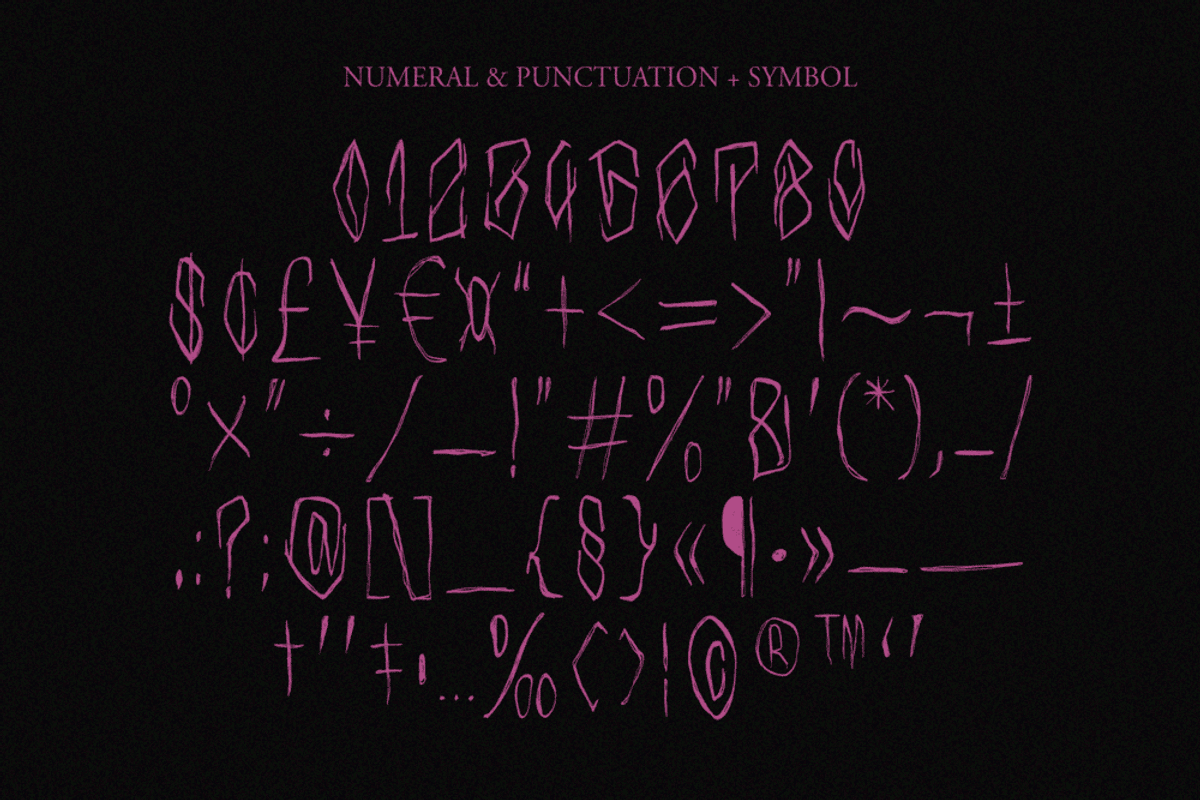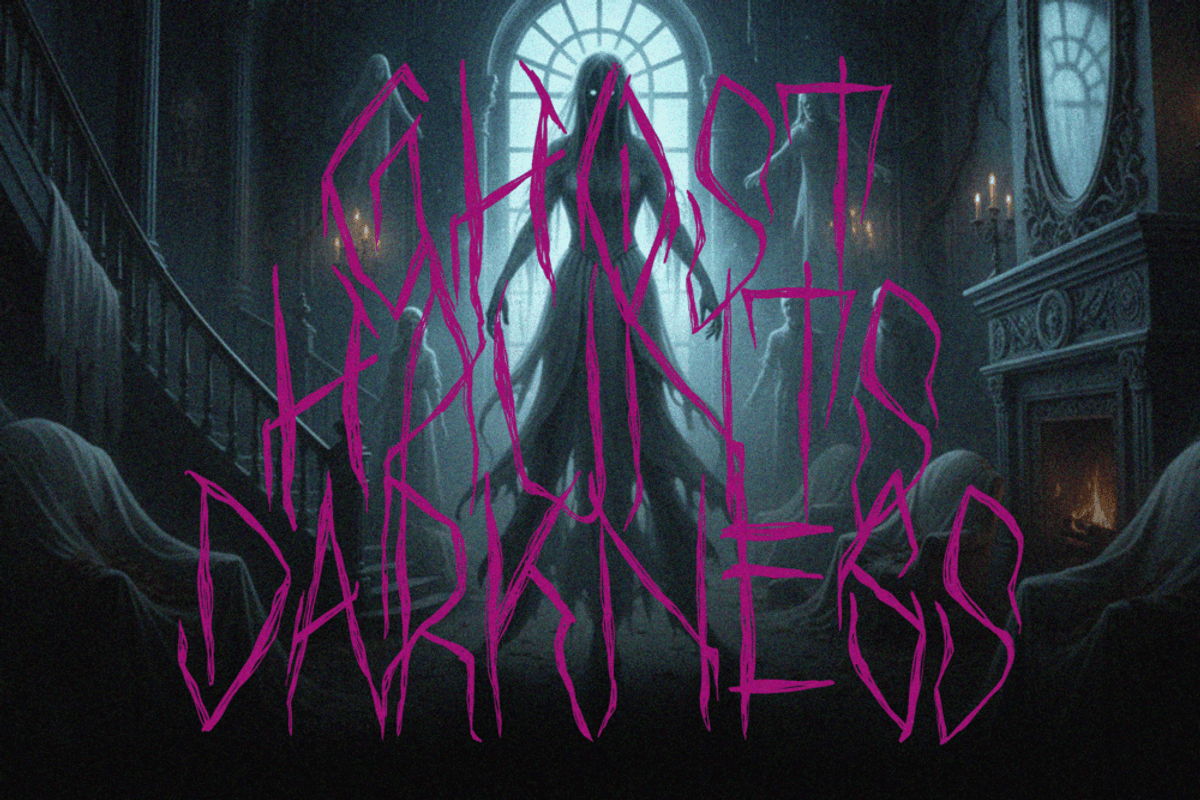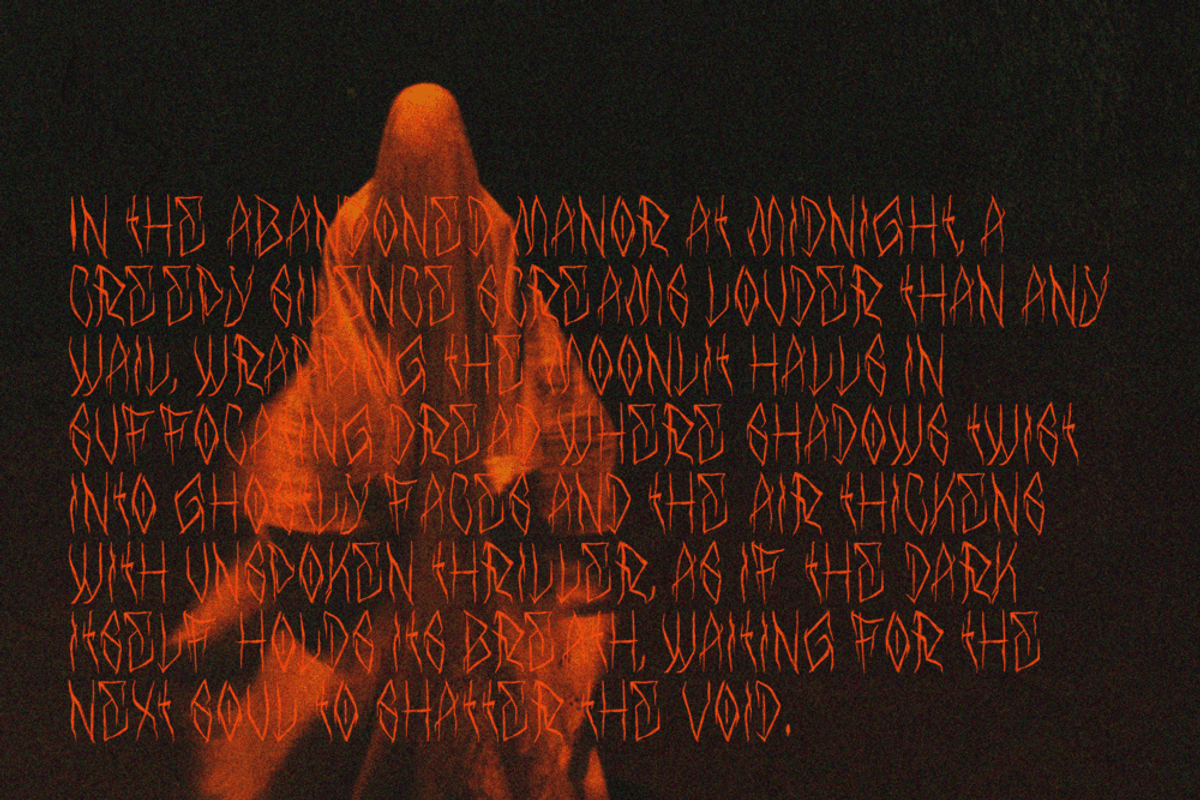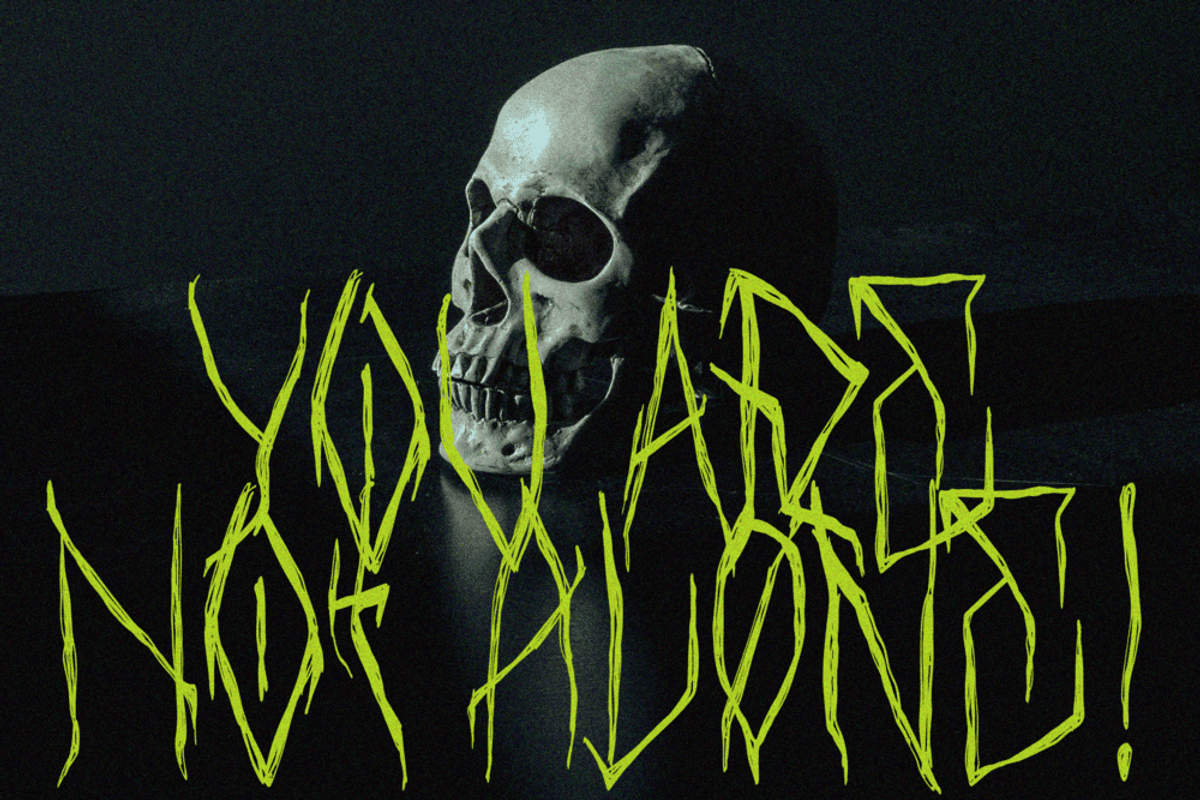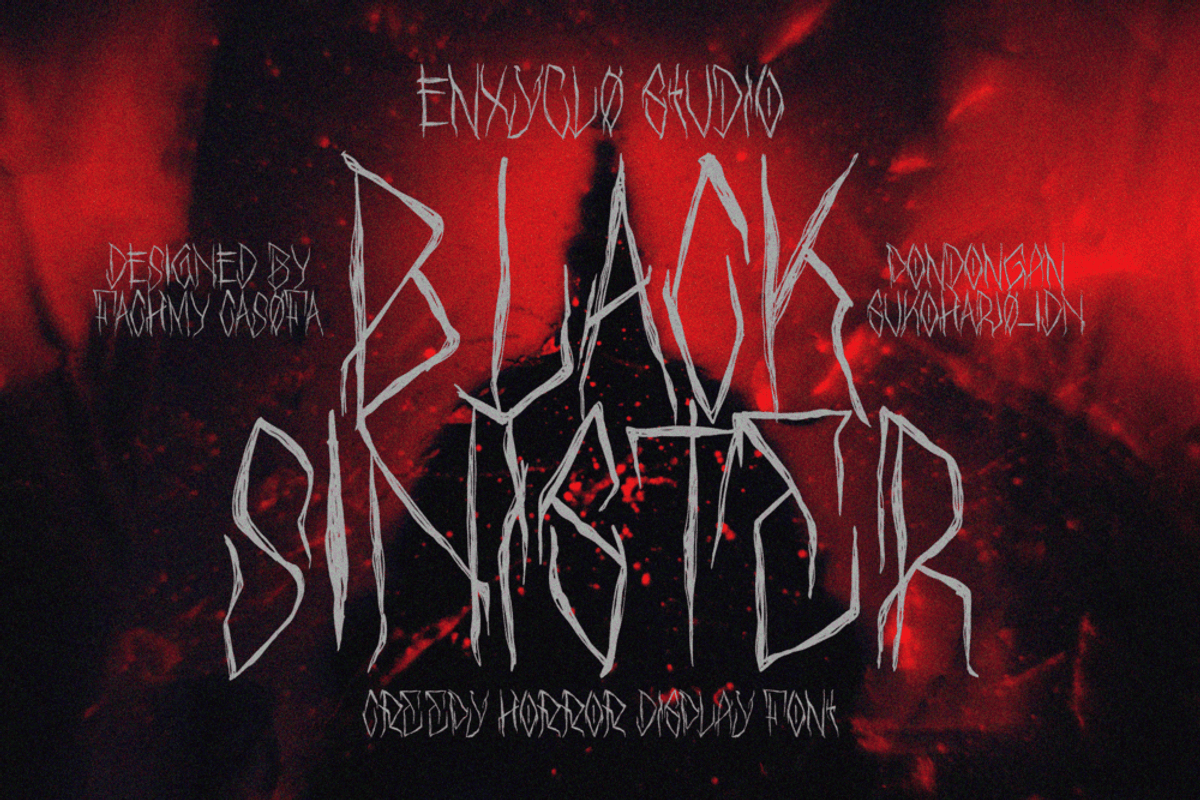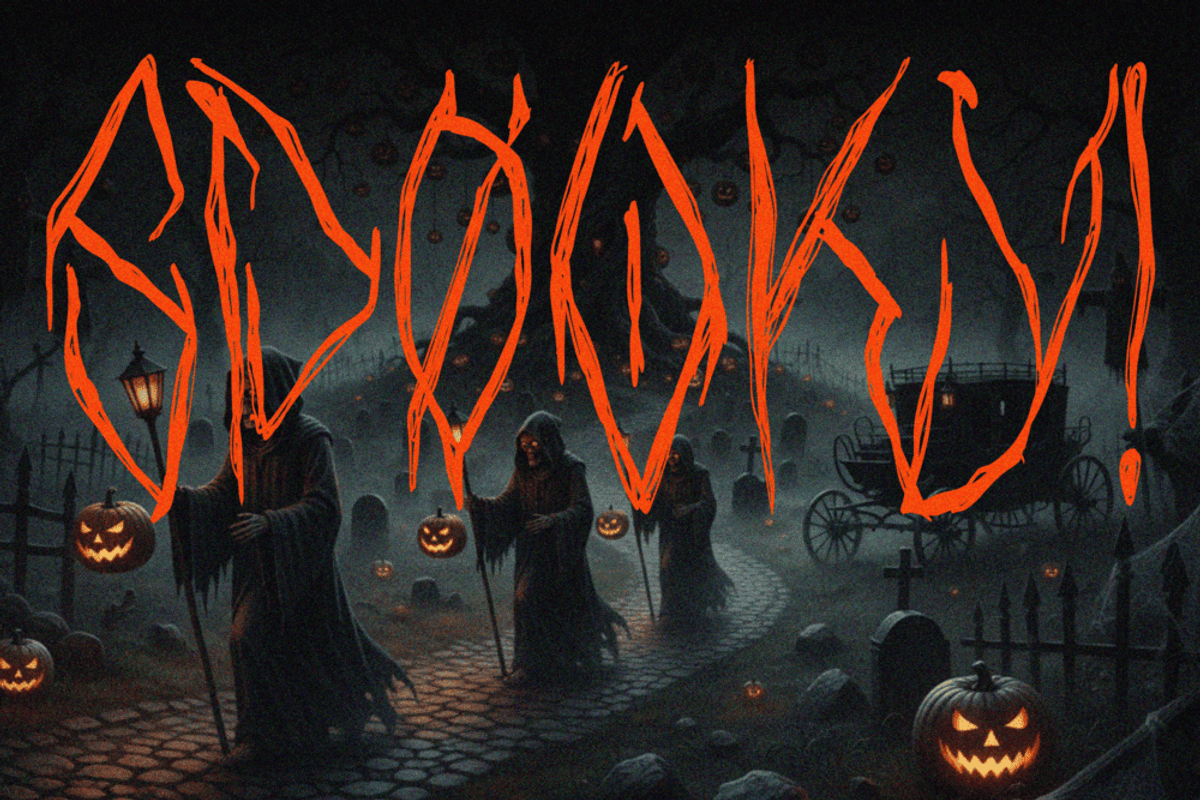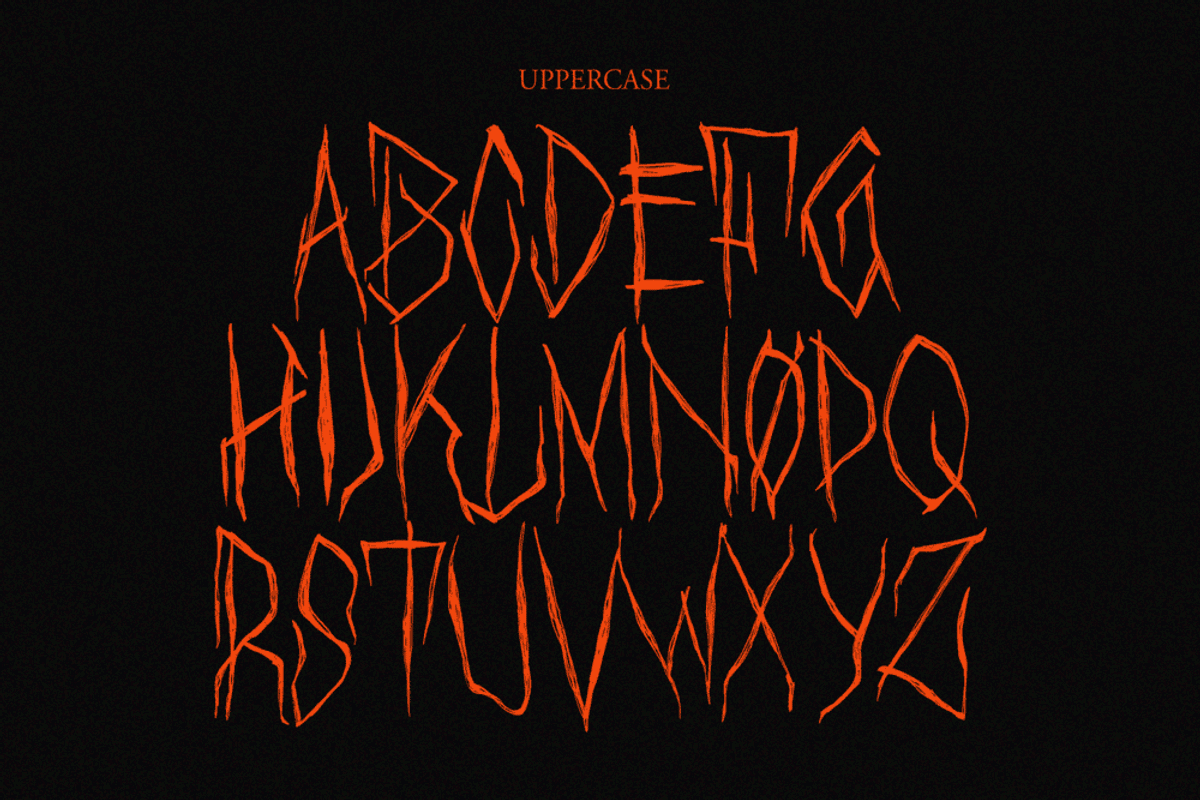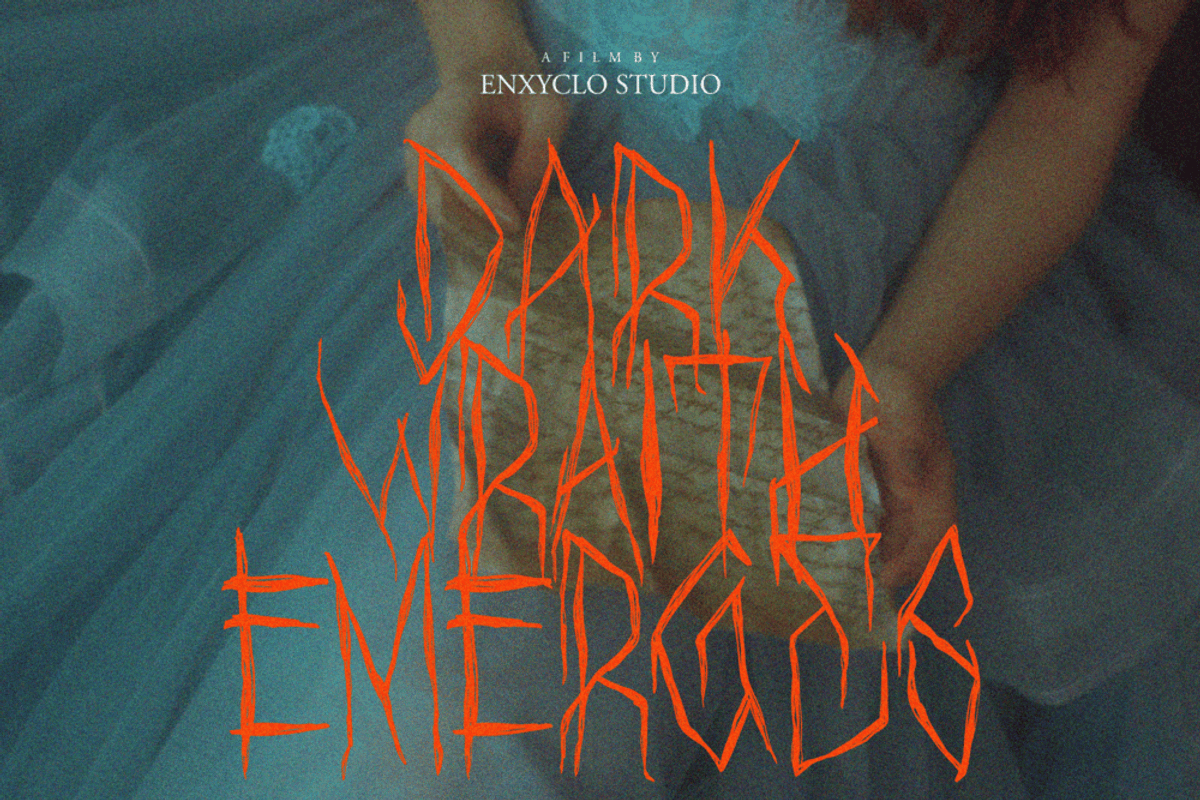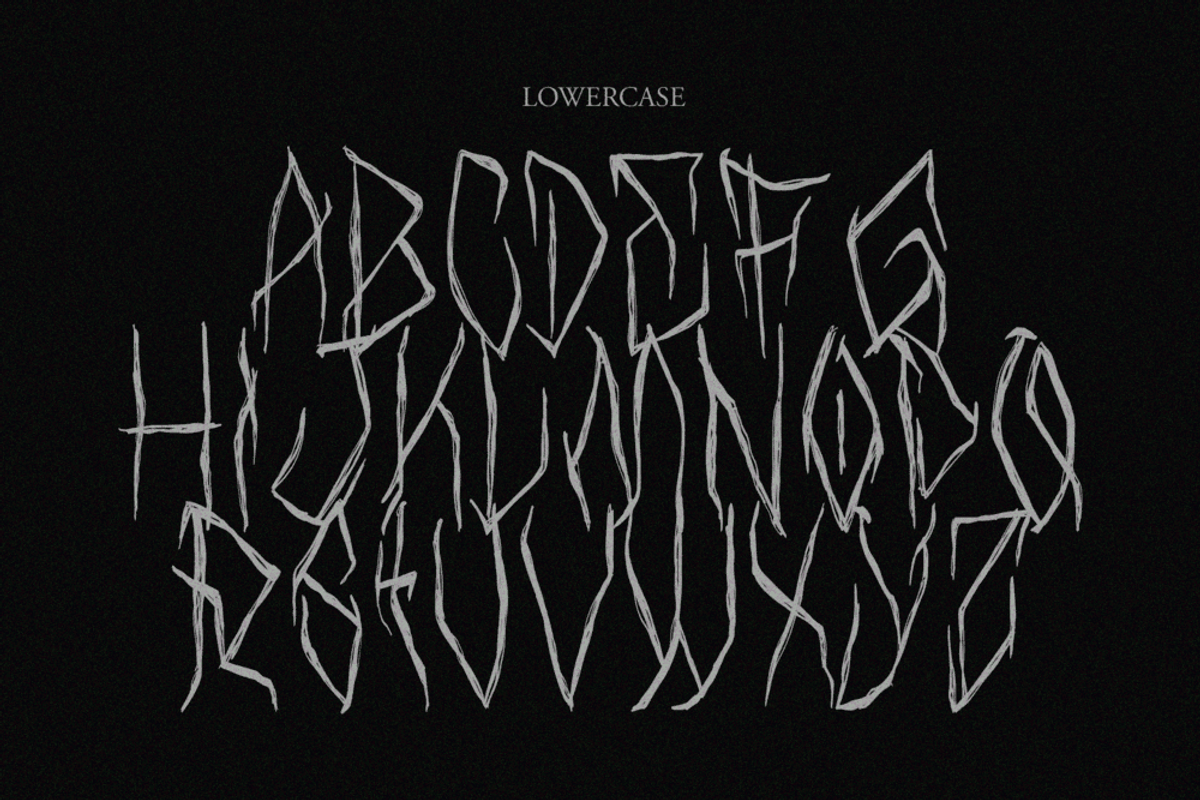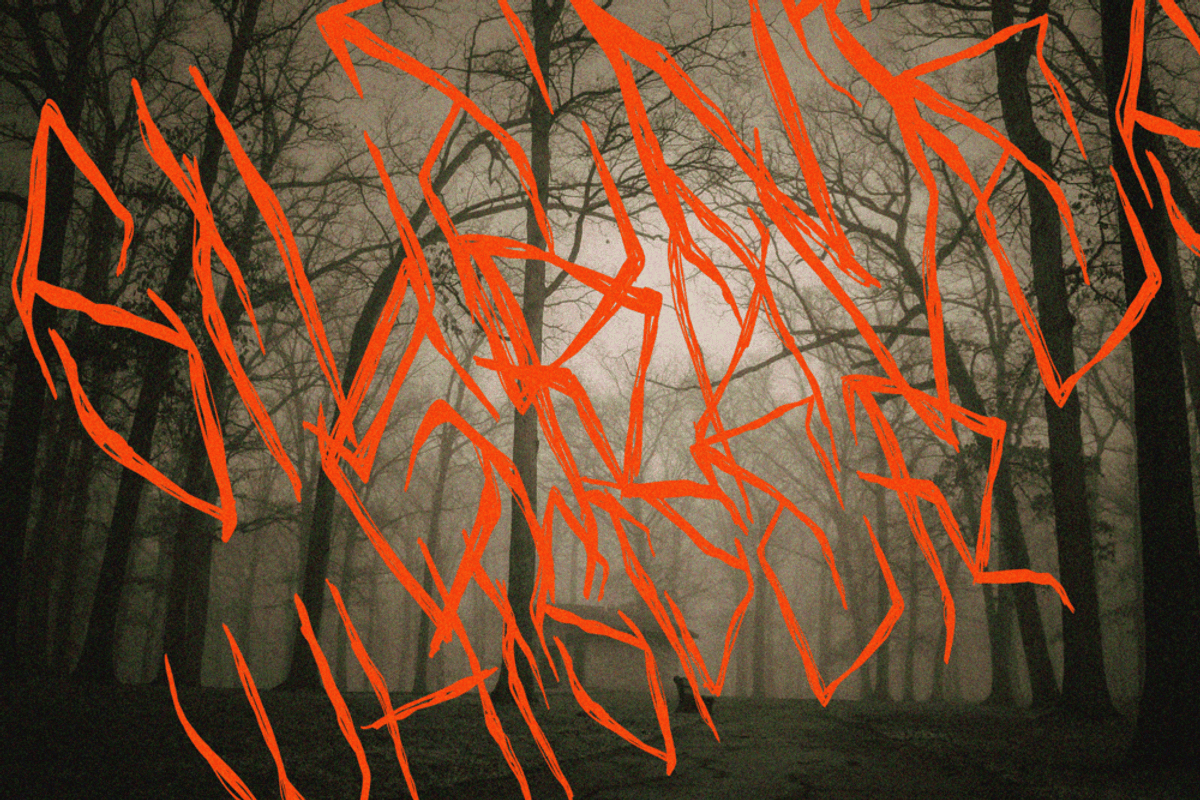
BLACK SINISTER — Horror Black Metal
Black Sinister is a display typeface crafted to evoke the eerie and unsettling atmosphere of classic horror. Perfectly designed for spooky headlines, Halloween posters, and any creative project that aims to capture a scary, creepy vibe. This font stands out with its unique, chilling letterforms that bring an authentic horror aesthetic to your design work, making it the ultimate choice for adding frightful flair. Whether you’re designing a Halloween event, a horror movie poster, or any project that demands a touch of creepiness, Black Sinister delivers bold, impactful visuals that grab attention and set the perfect tone. This versatile typeface combines terrifying style with readability, ensuring your scary message is not just seen but felt.
- Numeral, Punctuation & Symbol
PERFECT FOR
- Halloween party invitations and posters
- Horror movie and book titles
- Spooky event branding
- Creepy headlines and banners
- Scary-themed merchandise design
- Any project wanting a bold horror aesthetic